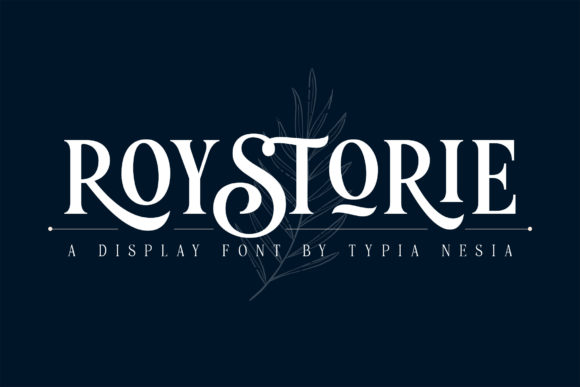
Are you looking for a font that will add a touch of luxury and elegance to your upcoming projects? Look no further than Roystorie Font! Created by Typia Nesia, this bold serif font is the perfect choice for all your design needs.
Whether you're working on a luxury logo and branding, a classy editorial design, or a fashion promotional campaign, Roystorie Font will take your projects to the next level. Its sophisticated and timeless design will captivate your audience and leave a lasting impression.
Imagine the impact you can make with Roystorie Font in your boutique branding or stationery design. It exudes a sense of exclusivity and refinement, making your brand stand out from the crowd. Your clients will be impressed by the attention to detail and the elegance this font brings to your materials.
Do you have a blog or website that needs a modern and stylish touch? Roystorie Font is the answer. Its clean and crisp lines make it a perfect choice for blog design, modern advertising campaigns, and card invitations. Your content will shine with this font, attracting more visitors and creating a memorable user experience.
But it doesn't stop there. Roystorie Font is also ideal for art quotes, home decor projects, book or cover titles, and special events. Its versatility allows you to explore your creativity and bring your ideas to life. Whether you're designing a Christmas card, creating beautiful art prints, or organizing a special event, Roystorie Font will add that extra touch of magic.
With Roystorie Font, you're not just getting a font; you're getting a tool that will elevate your designs and leave a lasting impression on your audience. Its captivating and elegant style combined with its versatility make it a must-have for any designer or creative professional.